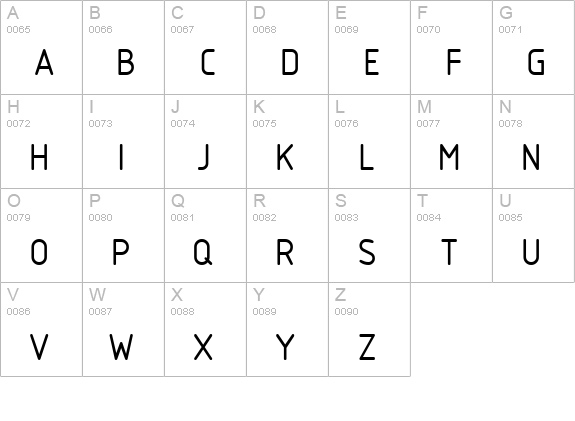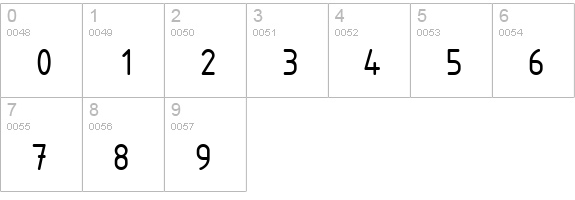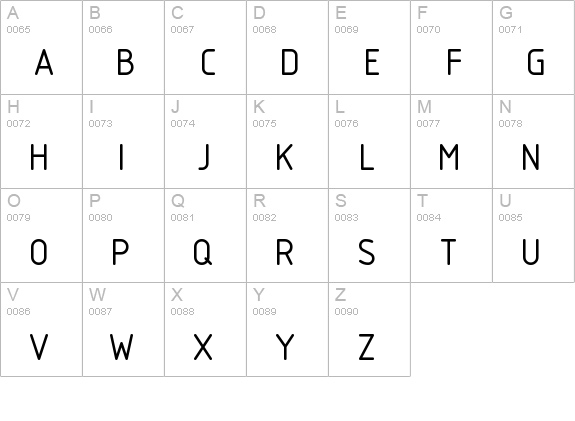
ISOCTEUR is a modern and versatile font that is sure to make a lasting impression. With its sleek and sophisticated design, this font is perfect for a wide range of projects, from branding and logo design to advertising and web graphics. One of the best things about ISOCTEUR is that it is free. Yes, you read that right! This amazing font is freely available to download at FontsMarket.com. Now, you can add a touch of elegance and professionalism to your work without breaking the bank. ISOCTEUR features clean lines and sharp edges, giving it a contemporary look that is both eye-catching and easy to read. Its bold letterforms make a bold statement, while its subtle curves add a touch of softness and sophistication. Whether you're designing a logo for a cutting-edge tech startup or creating a sleek and modern website, ISOCTEUR is the perfect font to bring your vision to life. Its wide range of weights and styles allows for endless creative possibilities, ensuring that your designs are truly unique. So why wait? Download ISOCTEUR today from FontsMarket.com and take your designs to the next level. With its free availability, there's no reason not to give this incredible font a try. Embrace the elegance and versatility of ISOCTEUR and watch your designs shine.